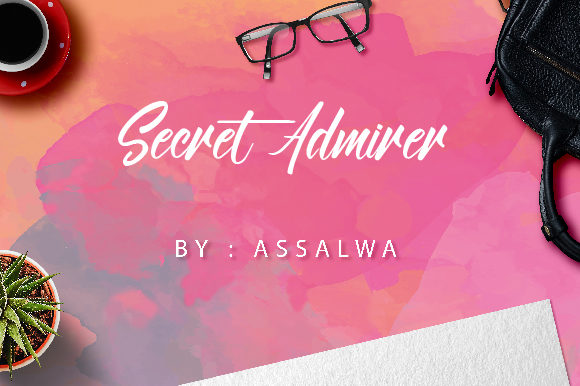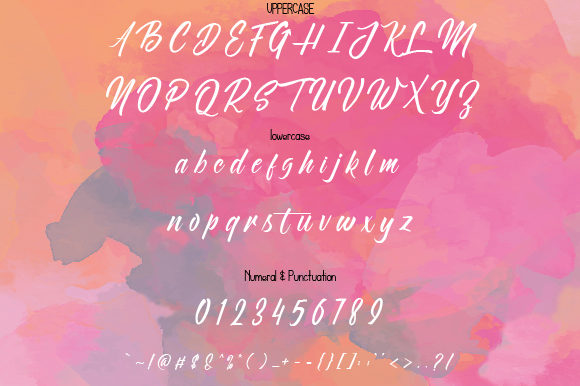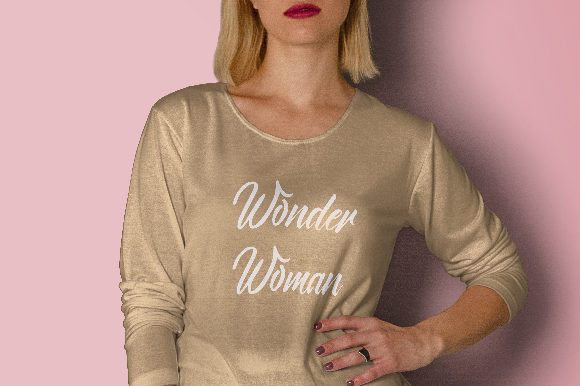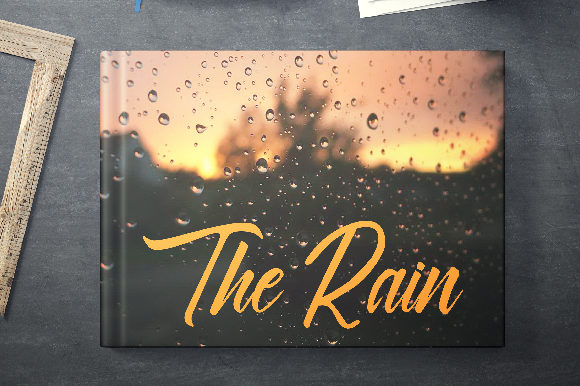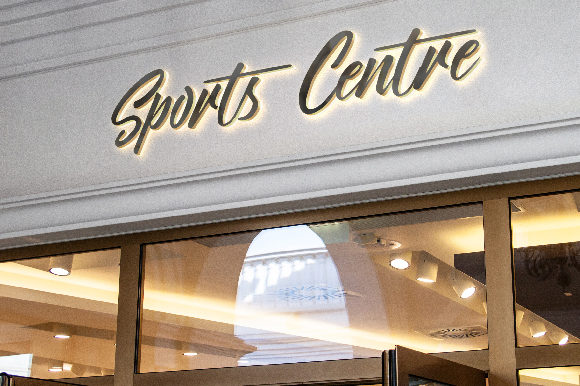
Secret Admirer Font
About Secret Admirer Font
The Secret Admirer is an amazing typeface. It has a modern style with an elegant touch.
It can be used for various purposes, such as headings, signature’s, logos, wedding invitations, t-shirts, letterheads, signage’s, labels, news, posters, badges, and much more!